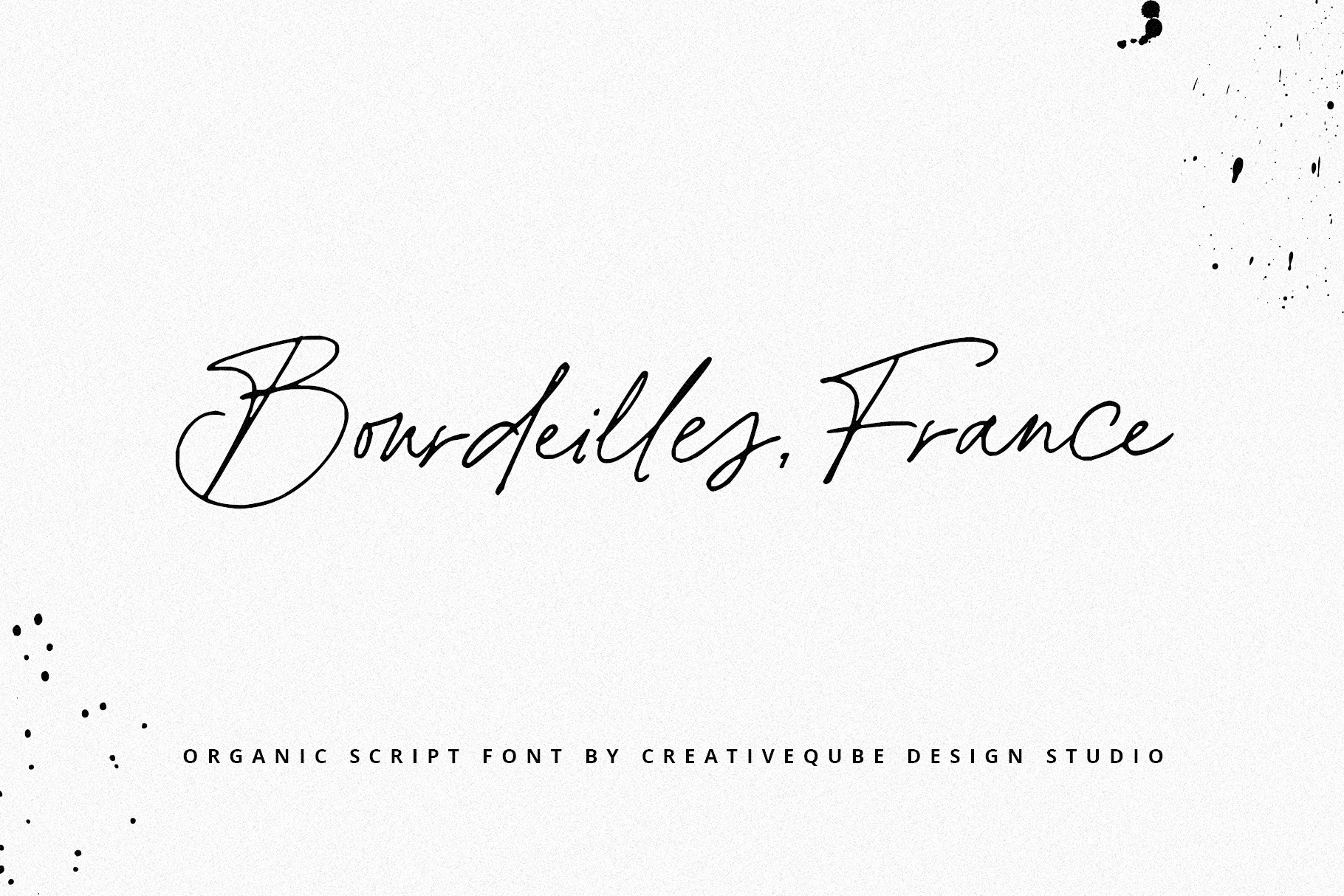
Bourdeilles France Script Font
Bourdeilles France Script is an organic handwritten script font loaded with extra ligatures that makes for stunning logos, quotes, wedding invites, blog posts, Instagram, and more!
Bourdeilles France includes a full set of lowercase and uppercase ligatures, plus a bunch of special ligatures. International language is supported.
I have been searching and searching for a new font that feels like a "modern pen script" and this fits the bill! Each letter is beautiful and unique and I love that it feels both upscale and casual at the same time. The variance in weight that suggest a hand drawn feel coupled with subtle textured edges make this font my new fave! Thank you for making this :D